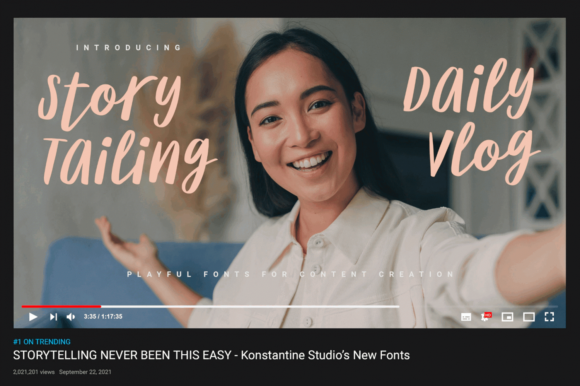
Unleash the Enchantment of Storytelling with Story Tailing Font - Your Gateway to Exquisite Calligraphy!
Welcome to the realm of Story Tailing Font, a captivating script font that weaves tales of artistry and elegance. This masterpiece, crafted with meticulous care by konstantinestudio, is destined to transform your creative visions into breathtaking realities.
With its graceful curves and balanced strokes, Story Tailing Font exudes an aura of sophistication, making it the perfect choice for those who seek to add a touch of refinement to their projects. Let this font become your digital quill as you pen captivating stories through your designs, social media posts, and personal projects.
Whether you're an Instagram aficionado seeking to elevate your feed with visually stunning content or a DIY enthusiast looking to add a personal touch to your handmade creations, Story Tailing Font is your indispensable companion. Its versatility knows no bounds, allowing you to effortlessly create invitations, greeting cards, logos, posters, and more.
Step into the world of Story Tailing Font and unlock a treasure trove of artistic possibilities. Let your imagination soar as you explore endless creative avenues, transforming ordinary designs into works of art. Download Story Tailing Font today and embark on a journey of creativity like never before!